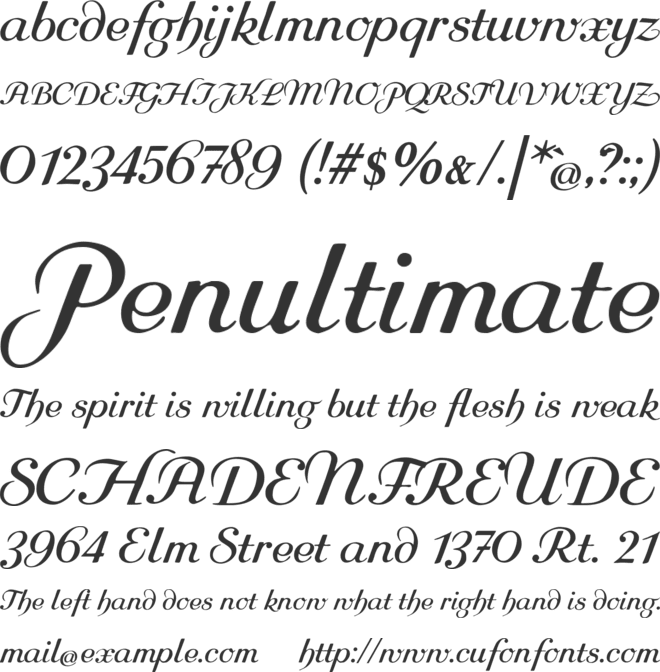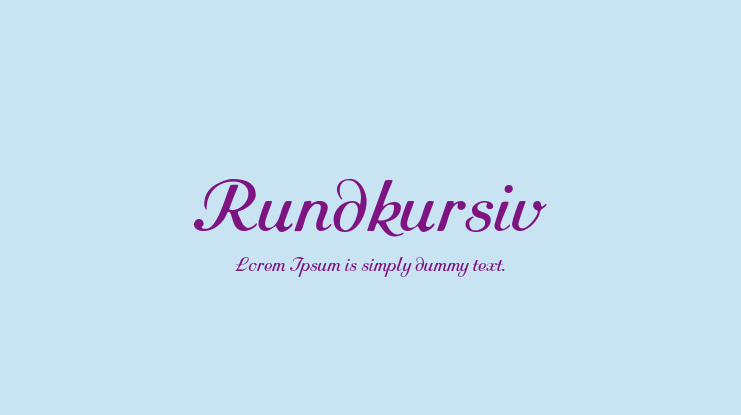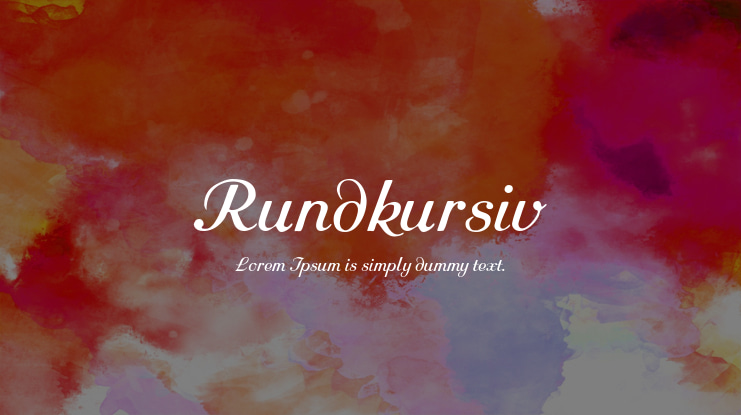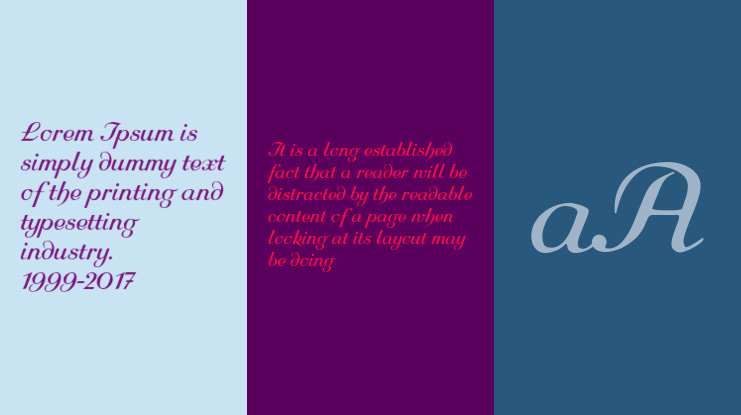
Rundkursiv Font
Peter Wiegel
Translation of the original German description (http://www.peter-wiegel.de/Rundkursiv.html):This font is based on a draft from the book "Die Schriften des Malers" (The lettering of the painter) by Walter Schenk, published by Dr. Pfannenberg & Co.At typografie.info (http://typografie.info) Ralf Herrmann writes about this book: "The writings of the painter is a large-sized folder with templates and instructions for the painting-, varnishing- and sign-making trade." The folder contains a 124-page textbook, and 50 separate drafts which mainly include lettering samples.The book describes all aspects of the sign-painter-craft – starting with stylistic / historical fundamentals of lettering to all design and technical issues in the design and implementation of painted signs. The lettering drafts are written or drawn with a high standard and present German sign painter's type design from the mid-20th century in an impressive way."There is really nothing to add, except that I am gradually making these fonts available for use on computers.Please donate if you like the font!